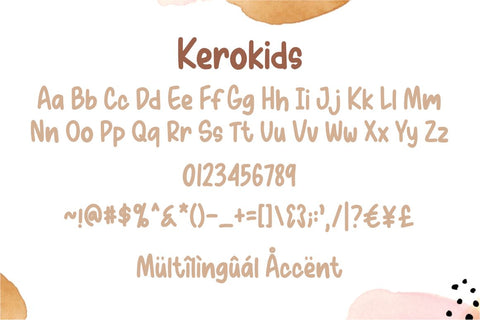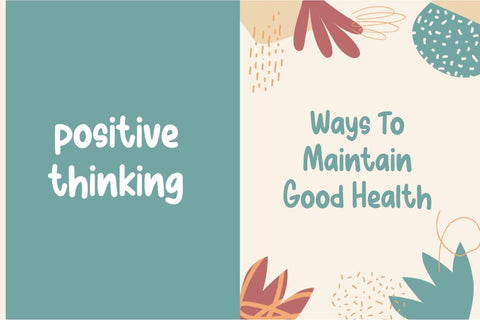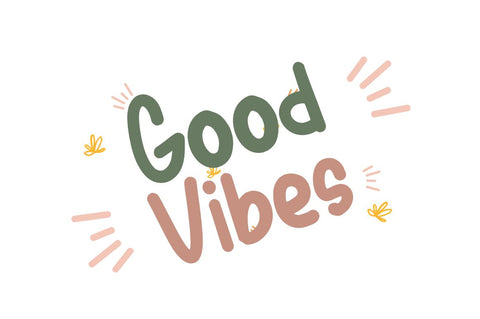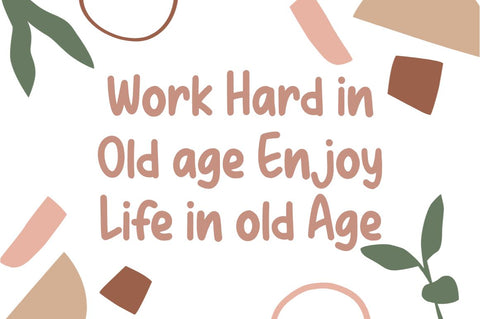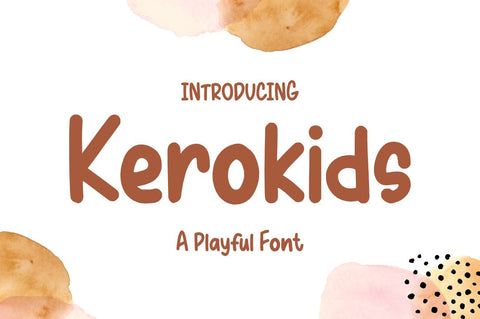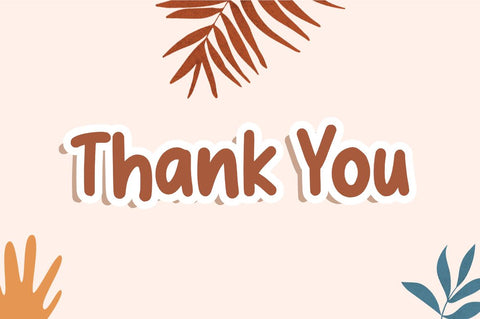
Kerokids - A Playful Font
Kerokids is a cute and crafty display font. font with cute handwritten concept suitable for children. This font is very compatible and can be installed on various software. This font is suitable for various purposes such as crafts, t-shirts, children's books, flyers, banners, products, etc.